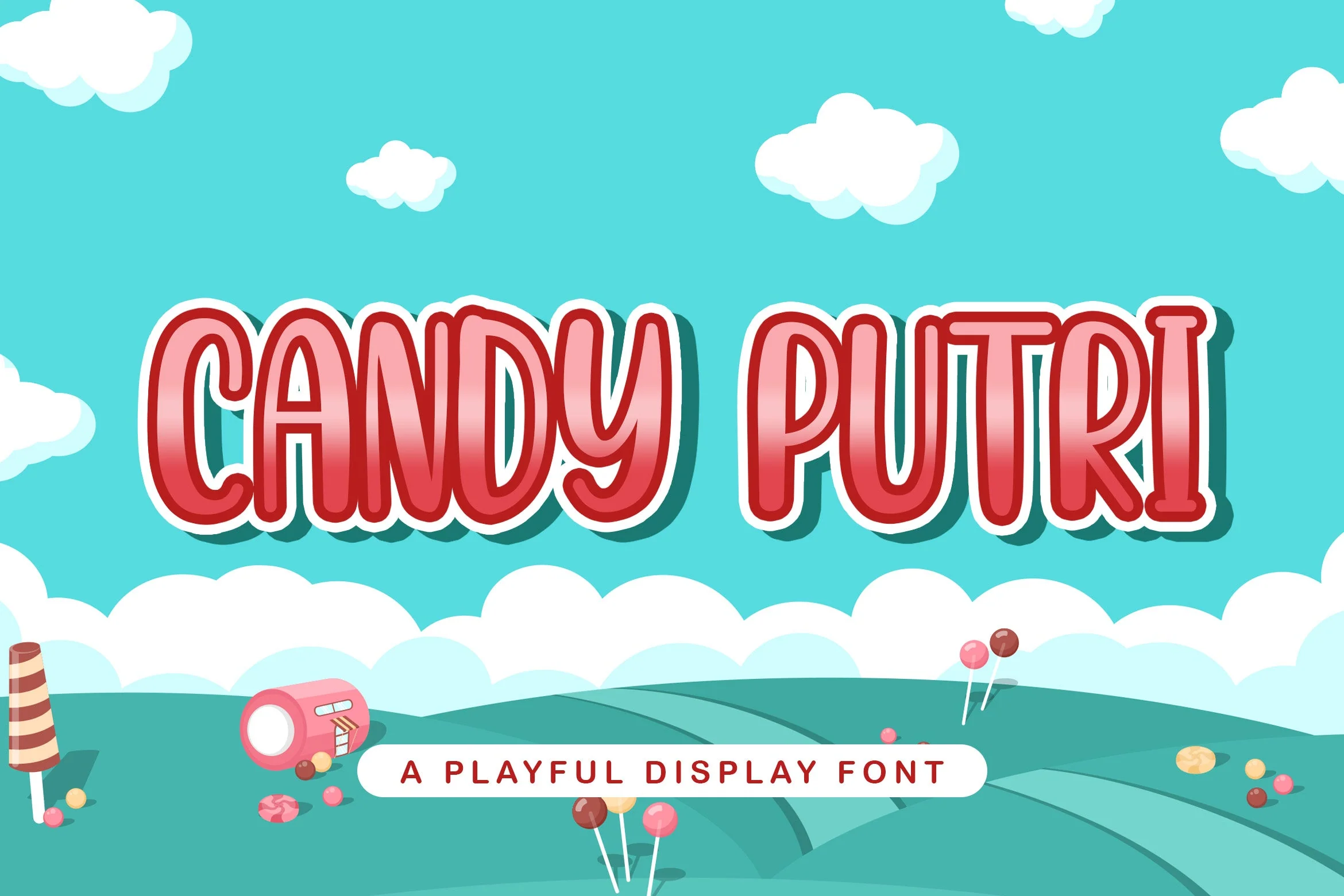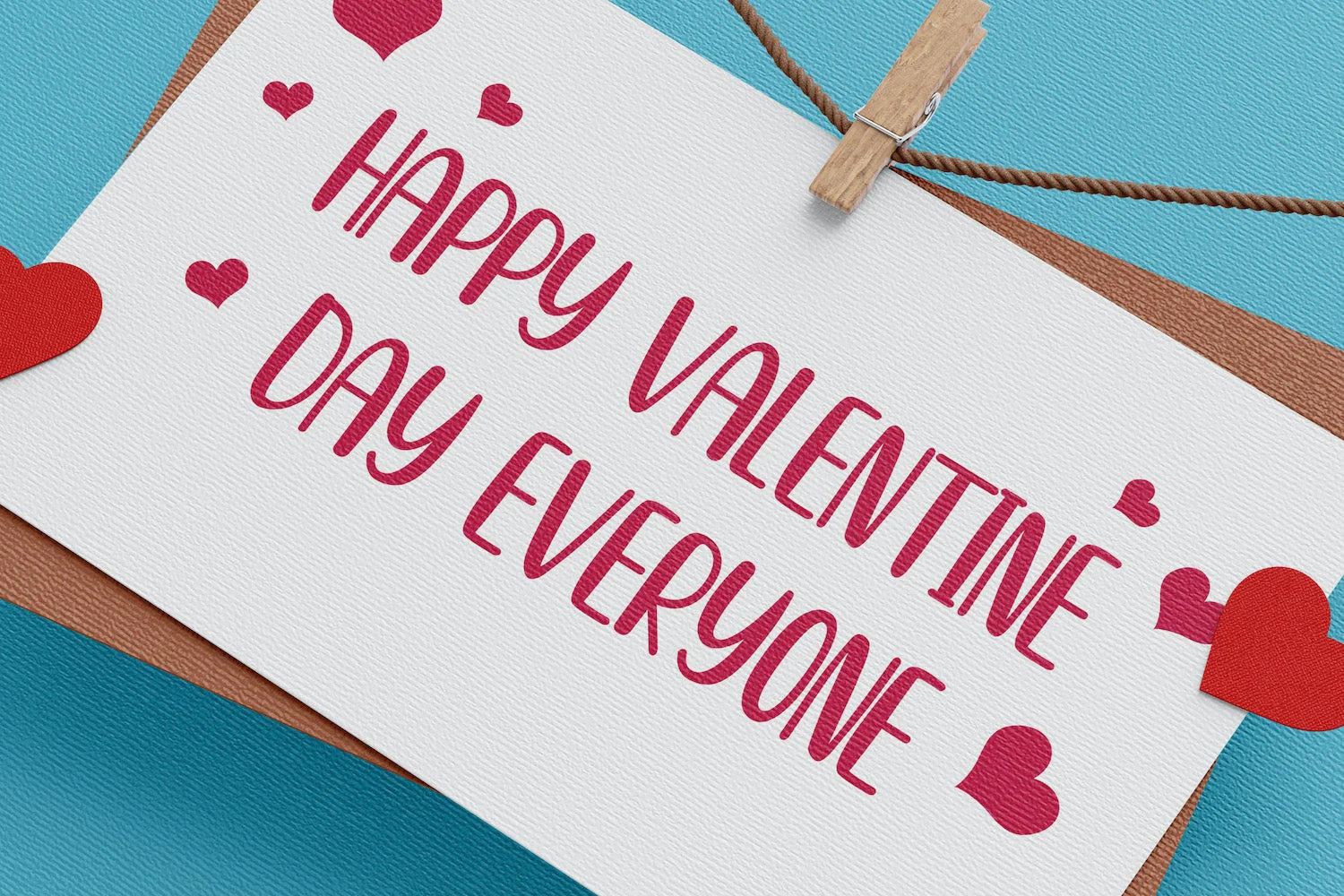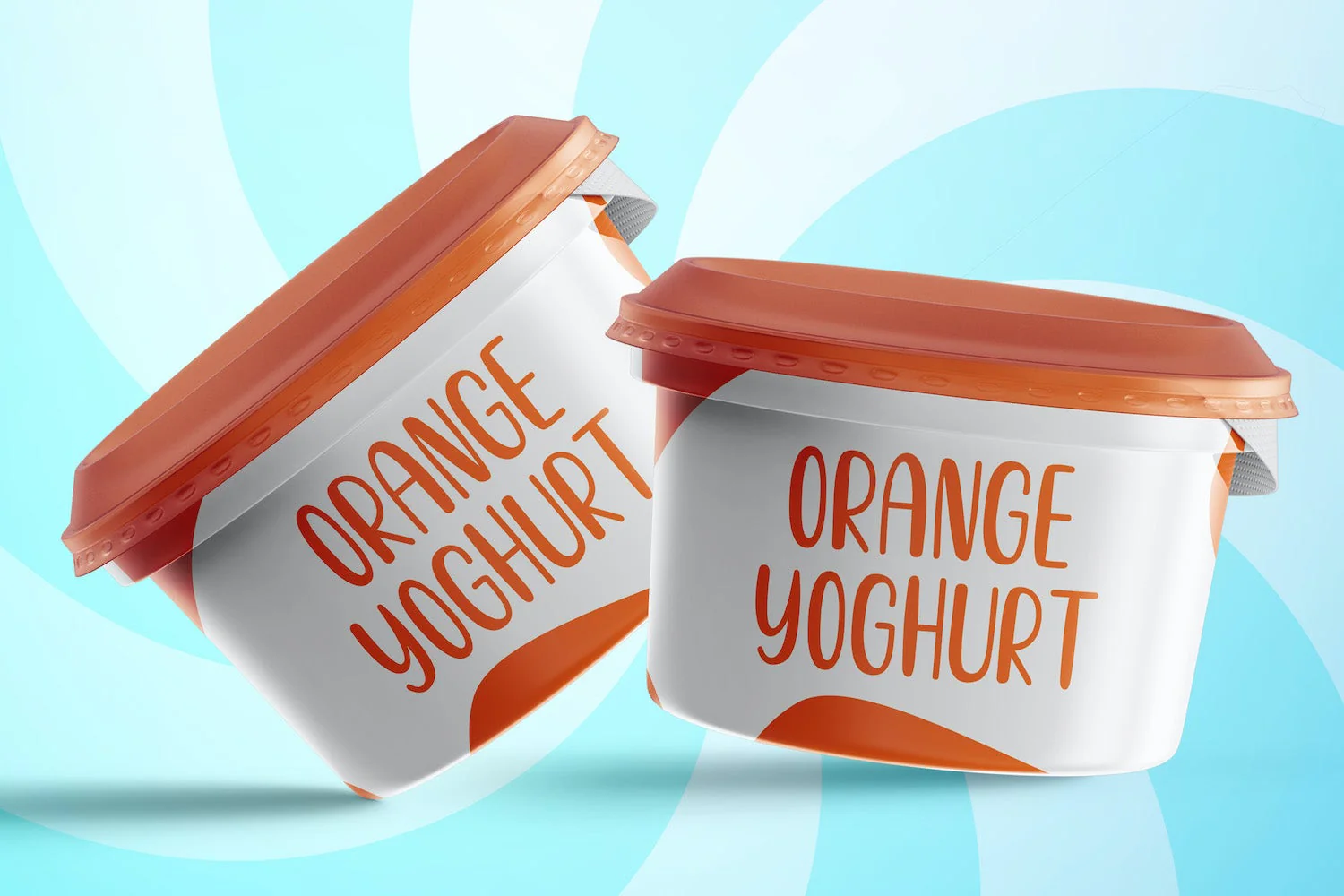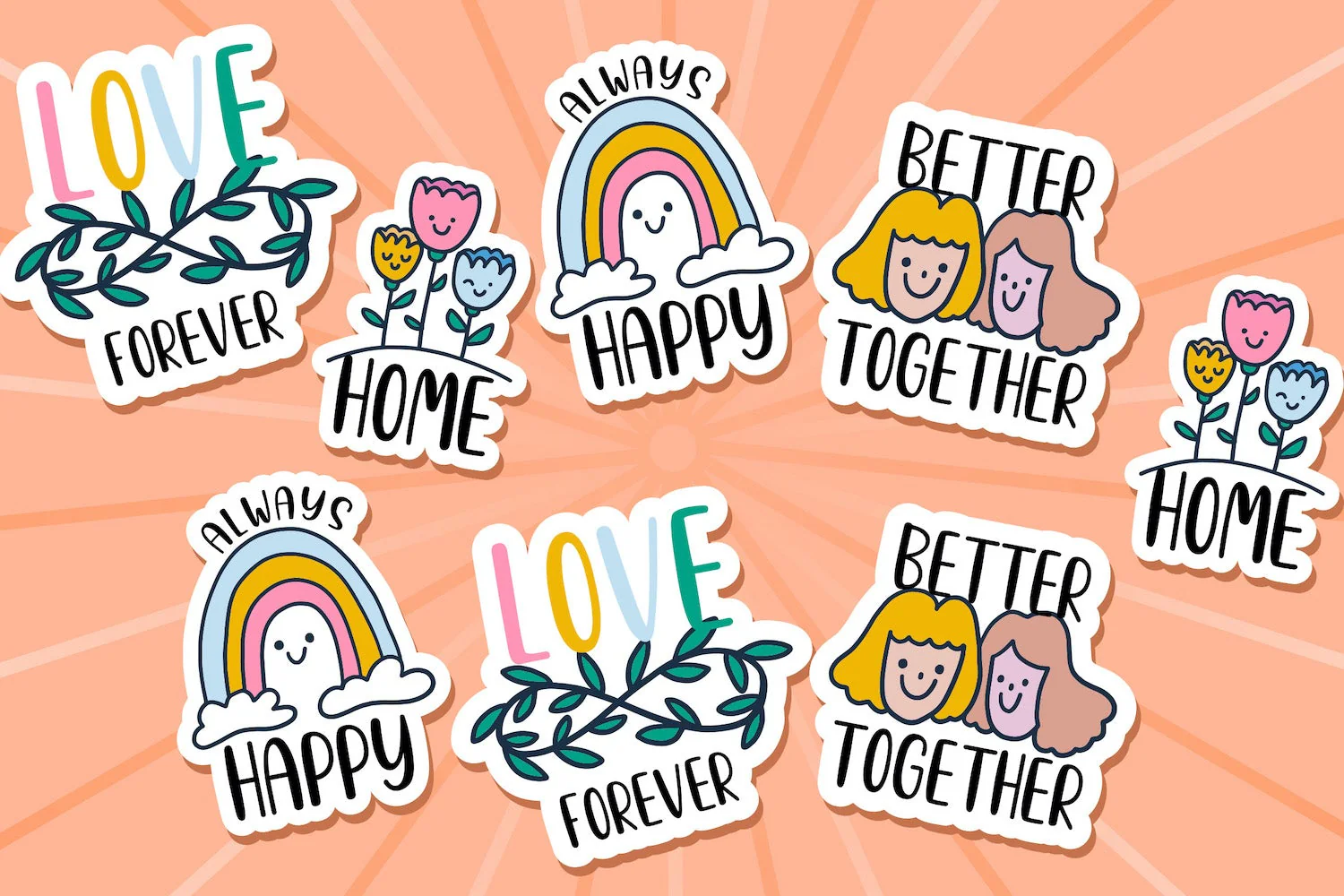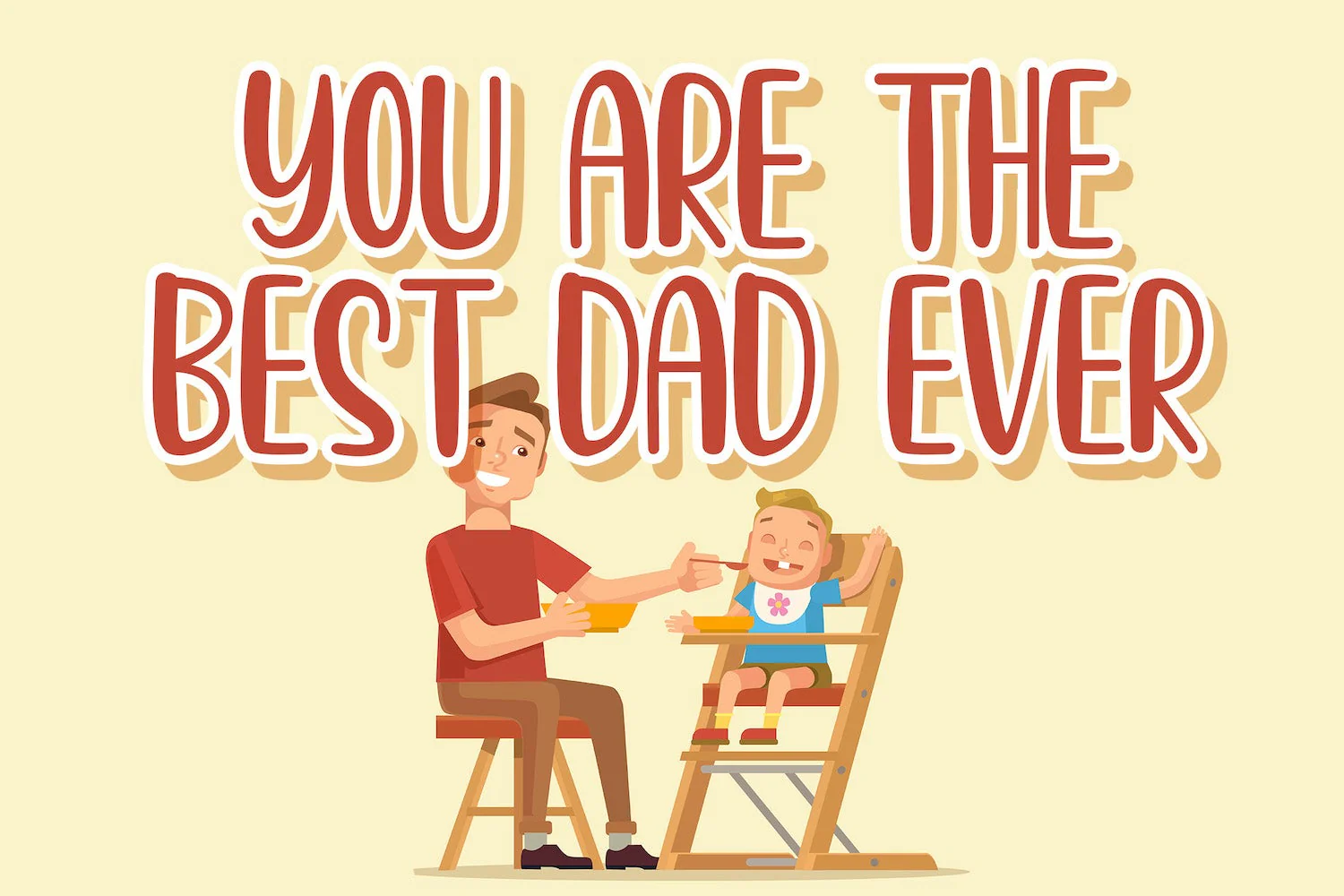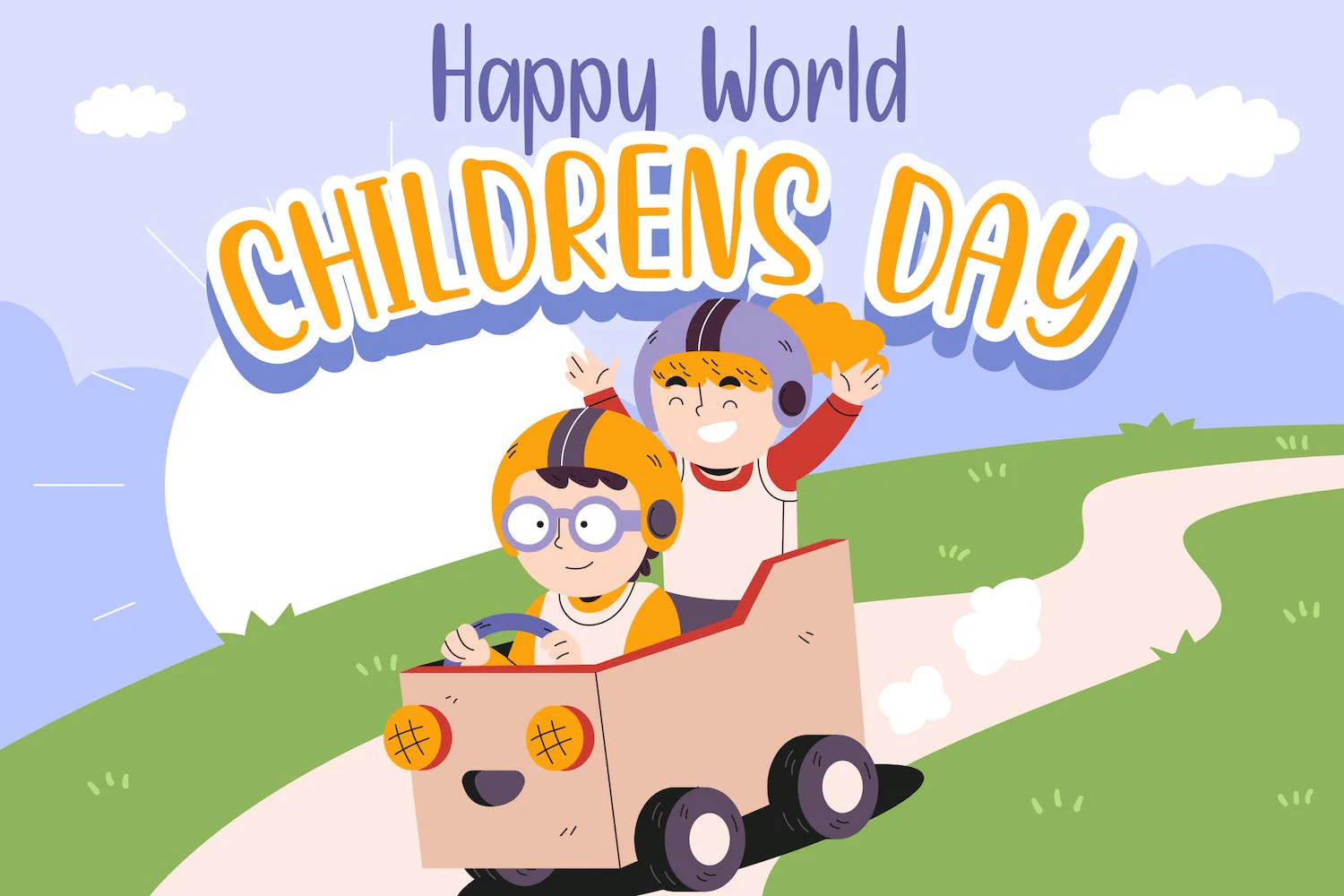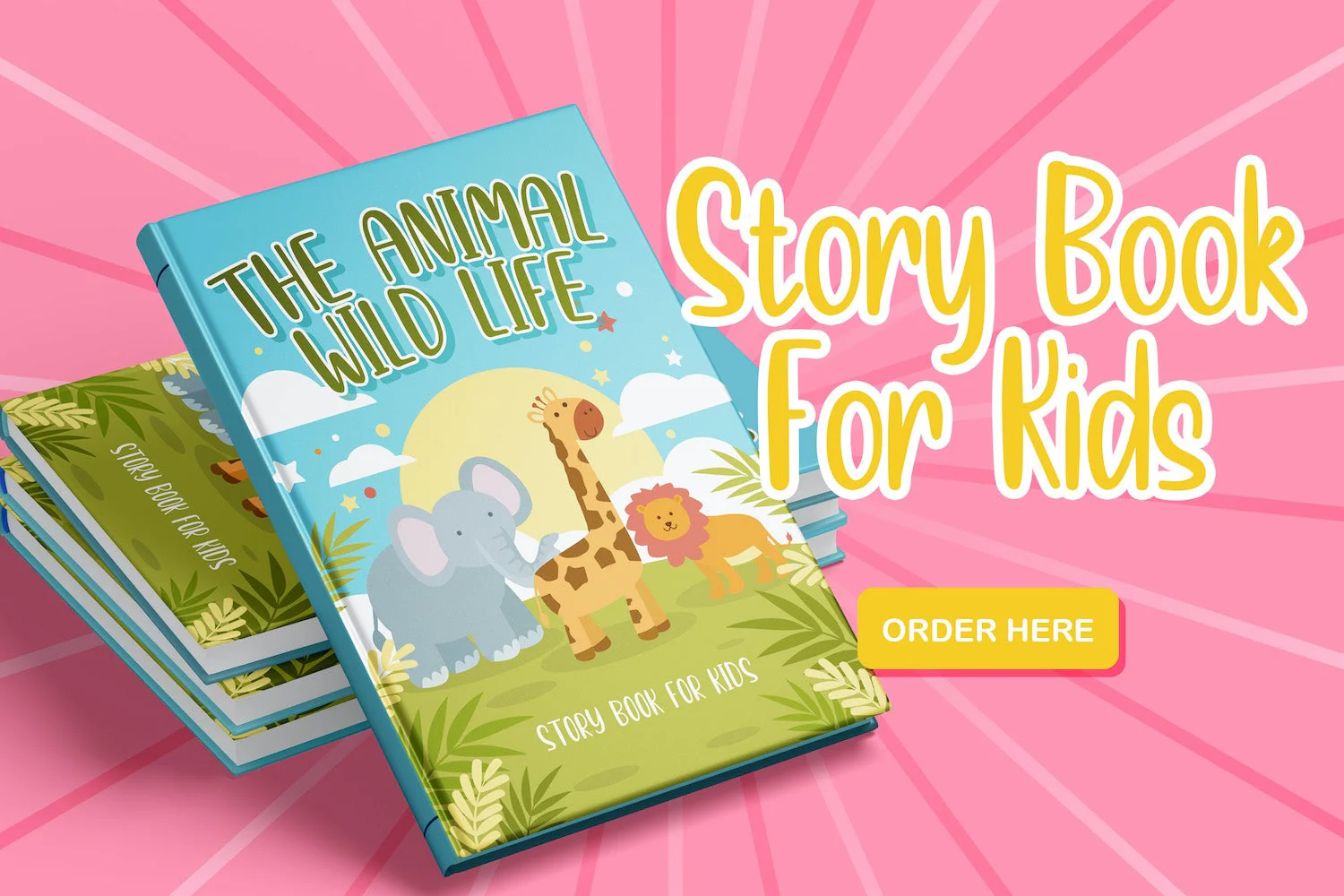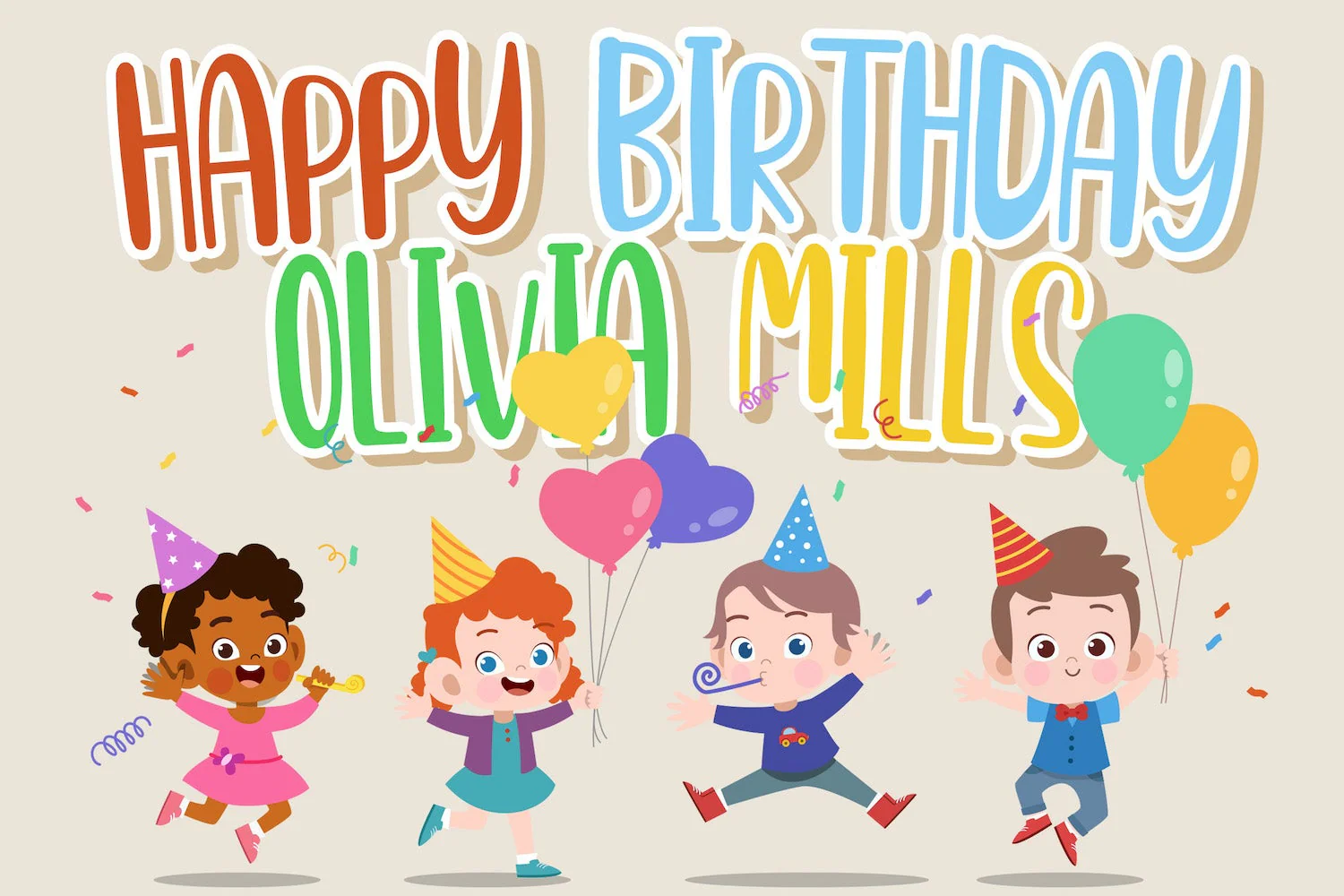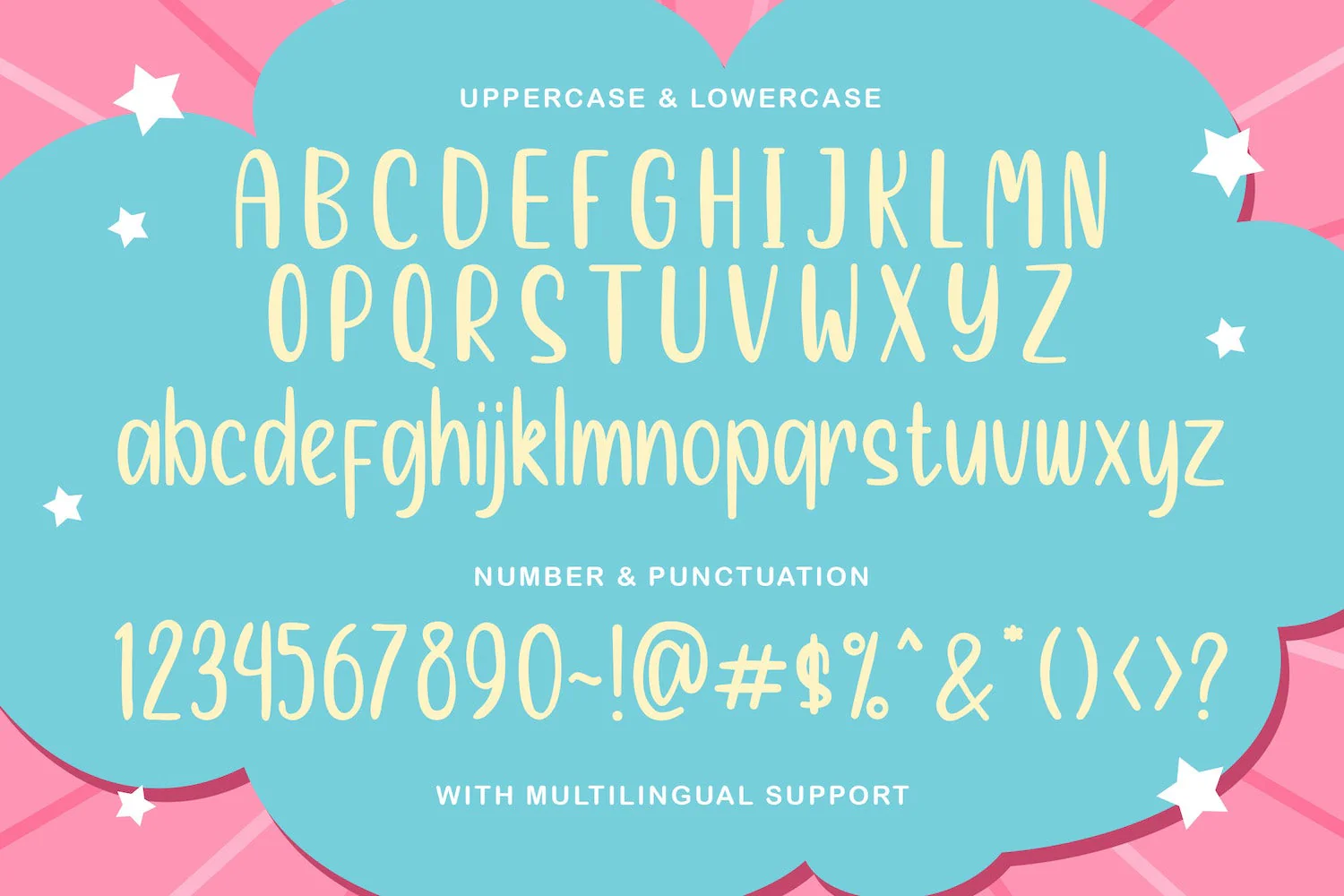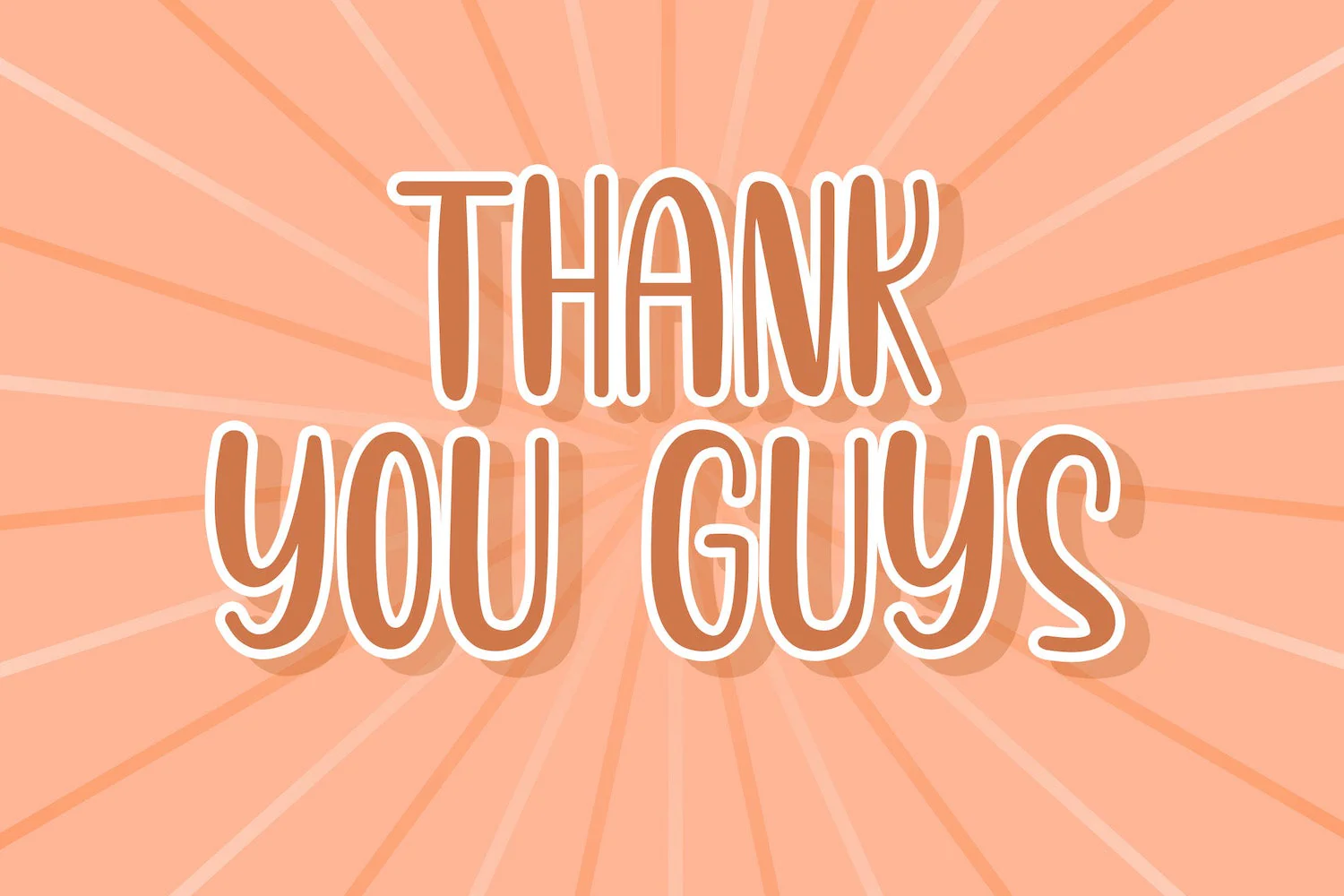
CANDY PUTRI - Playful Display Font
Introducing CANDY PUTRI - Playful Display Font
CANDY PUTRI is a fun display font. Playful and fresh, this font will be a hit for each of your children or school projects!
Introducing CANDY PUTRI - Playful Display Font
CANDY PUTRI is a fun display font. Playful and fresh, this font will be a hit for each of your children or school projects!